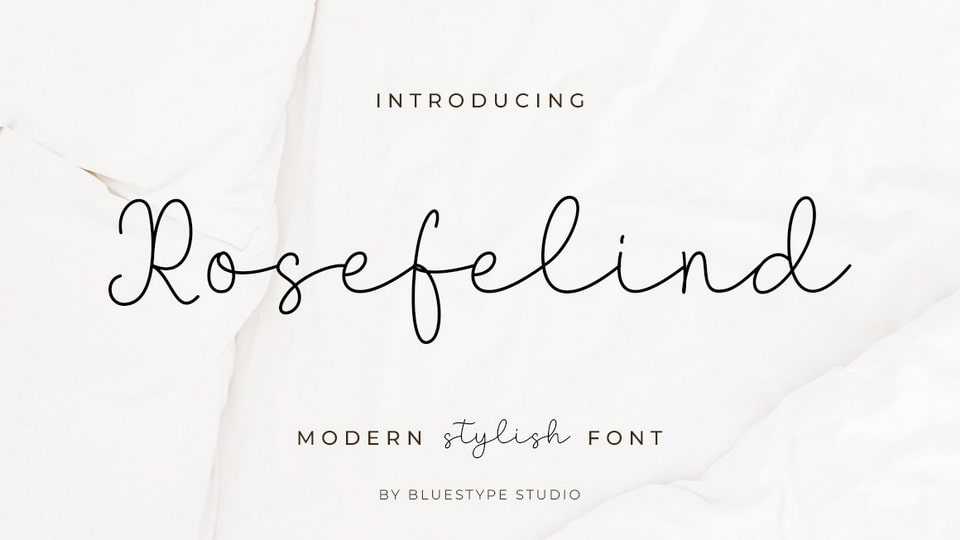
Download Rosefelind font, a stylish handwritten typeface combines contemporary flair with beautiful, flowing strokes, perfect for adding a touch of sophistication to any project.